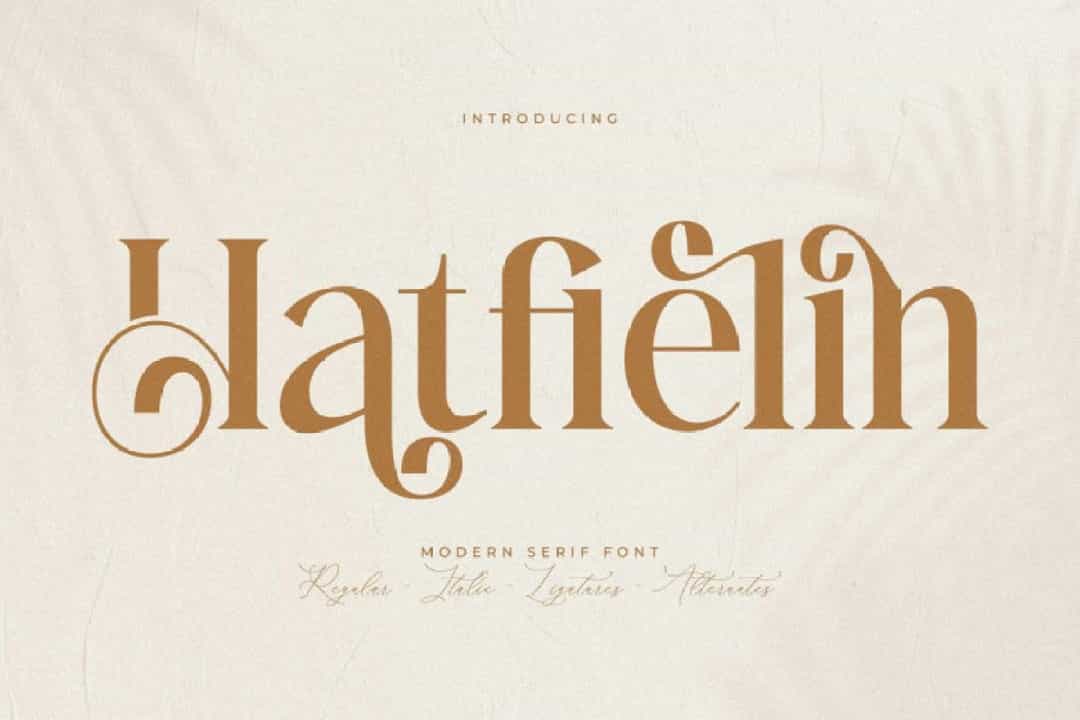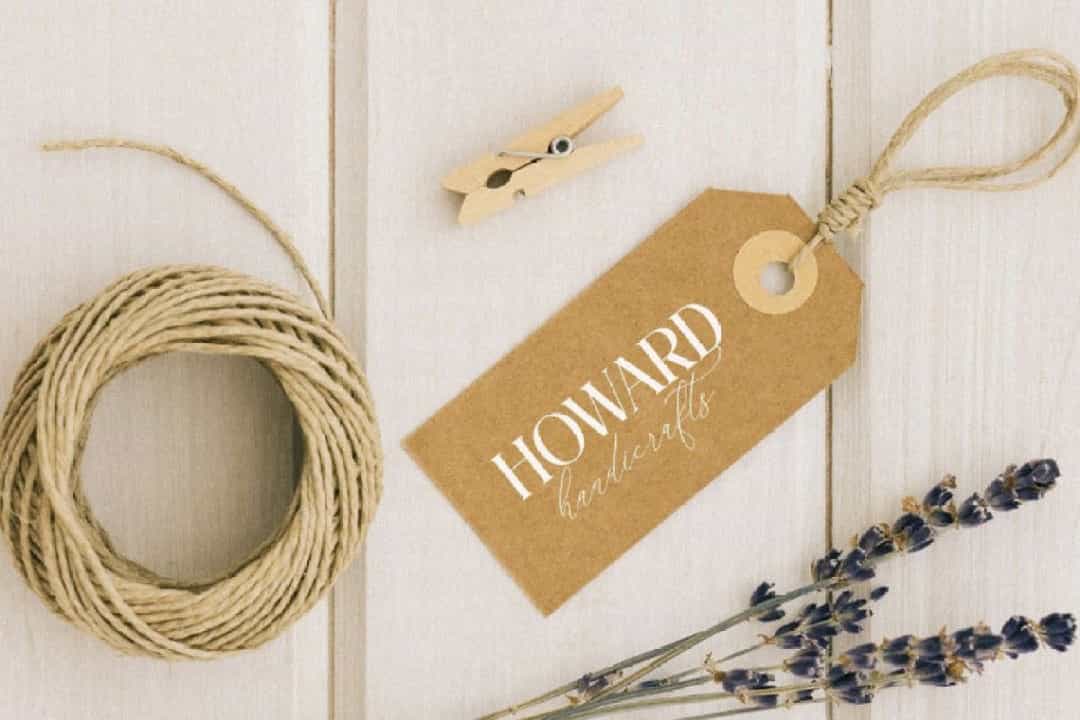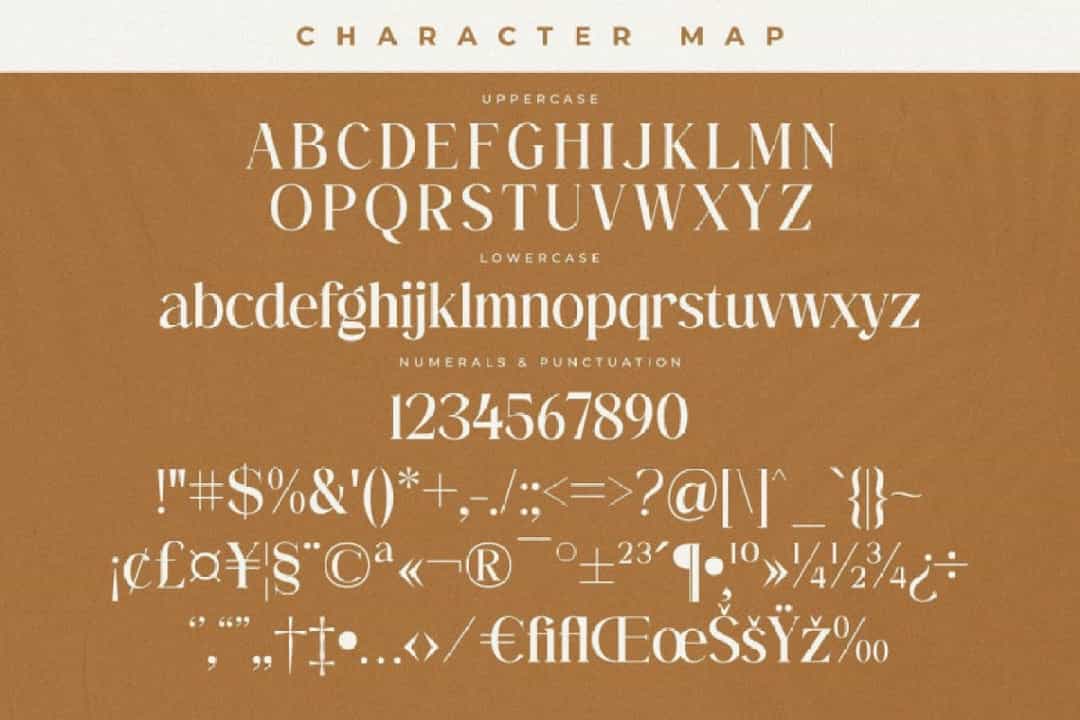
Hatfielin can be described as an elegant and contemporary serif typeface with its distinctive style and contemporary appearance. This typeface makes an excellent choice for creating luxurious logos, movie or book styles, fashion label clothing items, magazines and lettering as well as quotes among many other applications.